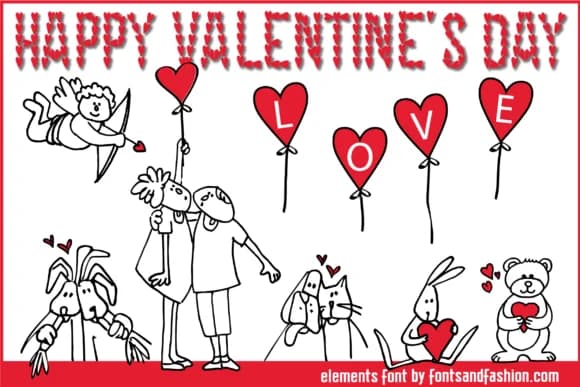
1 / 8About Happy Valentines Day Font
You're designing Valentine's Day cards by hand, and you reach for something to make that personalized message feel genuinely special. Happy Valentines Day, created by Fontsandfashion, is a dingbat font built entirely from hearts, cupids, and romantic decorative elements that transform ordinary lettering into expressions of love. This font excels at adding layered detail to love letters, Valentine invitation suites, and DIY card designs where the symbols themselves become part of the visual story rather than just background decoration.
Since the font works entirely with decorative characters instead of traditional letters, you're building your designs from hearts in various styles, romantic flourishes, and decorative accents. Layer these symbols around your main text in wedding announcements, romantic scrapbooking spreads, and handwritten greeting cards to add genuine visual depth. Each character is a designed symbol, not a letter, so you can construct entire visual frameworks using just the dingbat palette alone. The weight and rendering of these elements means they stay crisp and clear whether you need them large as focal points or smaller as background texture.
Happy Valentines Day Font is a versatile dingbats font that works for both headings and body text. Pair it with a contrasting sans-serif or serif font to add visual interest and a clear distinction between titles and body copy.